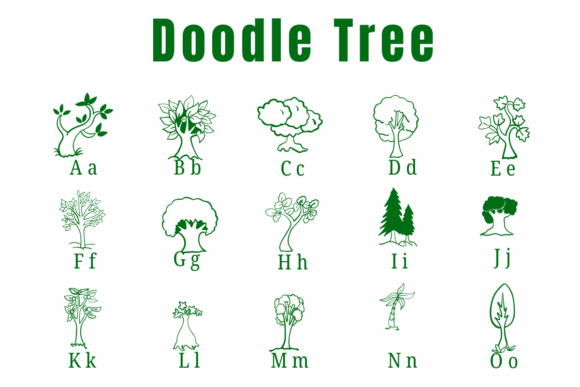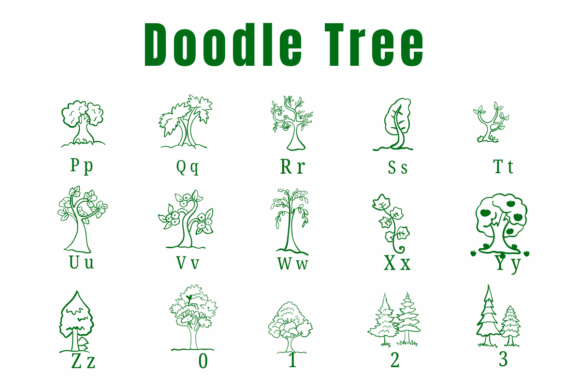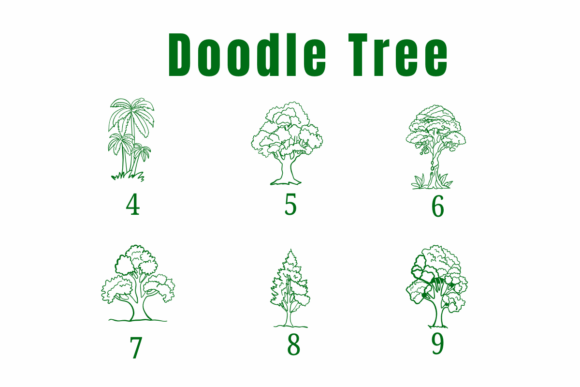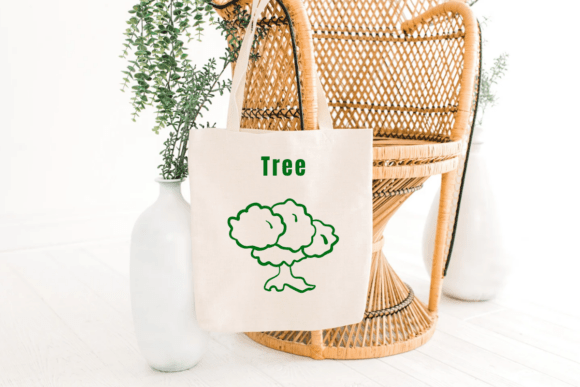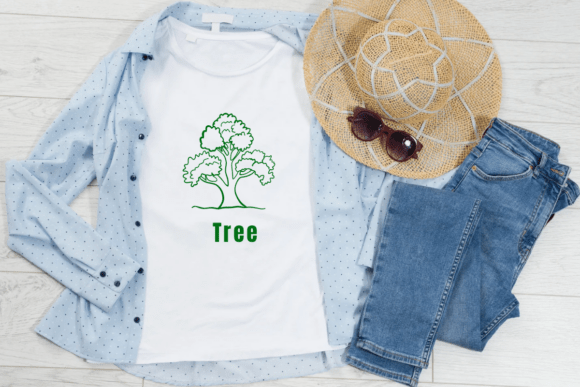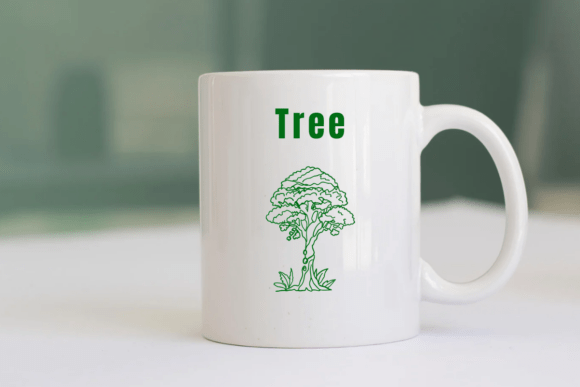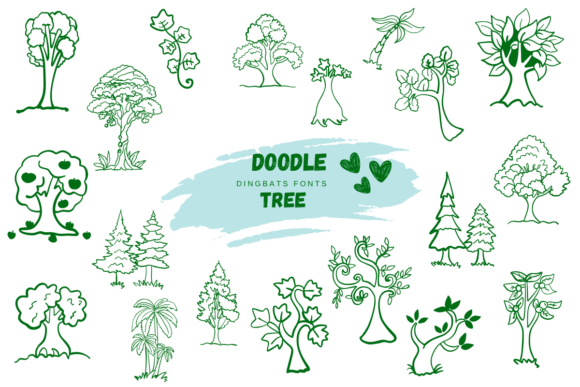
Doodle Tree Font: A Whimsical Dingbat Font for Nature-Inspired Projects
Are you a designer or crafter looking for a unique and charming font to add a touch of nature to your projects? Look no further than the Doodle Tree Font! This delightful dingbat font is packed with hand-drawn tree illustrations that are sure to bring a smile to your face. In this article, we’ll explore the features and benefits of the Doodle Tree Font, and show you how it can be used to create stunning eco-friendly projects, children’s books, garden signage, and creative classroom materials.
What is Doodle Tree Font?
Doodle Tree Font is a whimsical dingbat font that features a collection of charming hand-drawn tree illustrations. Each character in the font is a unique and intricate drawing of a tree, complete with branches, leaves, and roots. The font is designed to be used as a graphic element, rather than a traditional text font, making it perfect for adding visual interest to your projects.
Key Features of Doodle Tree Font
- Hand-drawn illustrations: Each character in the Doodle Tree Font is a unique, hand-drawn illustration of a tree, giving your projects a personal and organic feel.
- Whimsical and charming: The Doodle Tree Font is designed to be playful and fun, making it perfect for projects that require a touch of whimsy.
- Nature-themed: The font features tree illustrations, making it perfect for eco-friendly projects, garden signage, and outdoor-themed crafts.
- Dingbat font: The Doodle Tree Font is a dingbat font, which means that each character is a graphic element, rather than a traditional text character.
Uses for Doodle Tree Font
The Doodle Tree Font is a versatile font that can be used in a variety of projects, including:
- Eco-friendly projects: The Doodle Tree Font is perfect for projects that promote sustainability and eco-friendliness, such as environmental posters, brochures, and website graphics.
- Children’s books: The whimsical illustrations in the Doodle Tree Font make it a great choice for children’s books, particularly those with a nature or outdoor theme.
- Garden signage: The font’s tree illustrations make it perfect for garden signage, such as plant labels, garden markers, and welcome signs.
- Creative classroom materials: The Doodle Tree Font can be used to create engaging and interactive classroom materials, such as educational posters, charts, and worksheets.
Tips for Using Doodle Tree Font
Here are a few tips for using the Doodle Tree Font in your projects:
- Use it as a graphic element: The Doodle Tree Font is designed to be used as a graphic element, so don’t be afraid to experiment with different sizes, colors, and arrangements.
- Mix and match characters: The font features a range of tree illustrations, so try mixing and matching different characters to create a unique and eye-catching design.
- Pair it with other fonts: The Doodle Tree Font can be paired with other fonts to create a visually interesting design. Try pairing it with a clean sans-serif font for a modern look.
The Doodle Tree Font is a unique and charming dingbat font that is perfect for designers and crafters looking to add a touch of nature to their projects. With its hand-drawn tree illustrations and whimsical charm, it’s the perfect choice for eco-friendly projects, children’s books, garden signage, and creative classroom materials. So why not give it a try and see how it can bring a touch of magic to your next project?